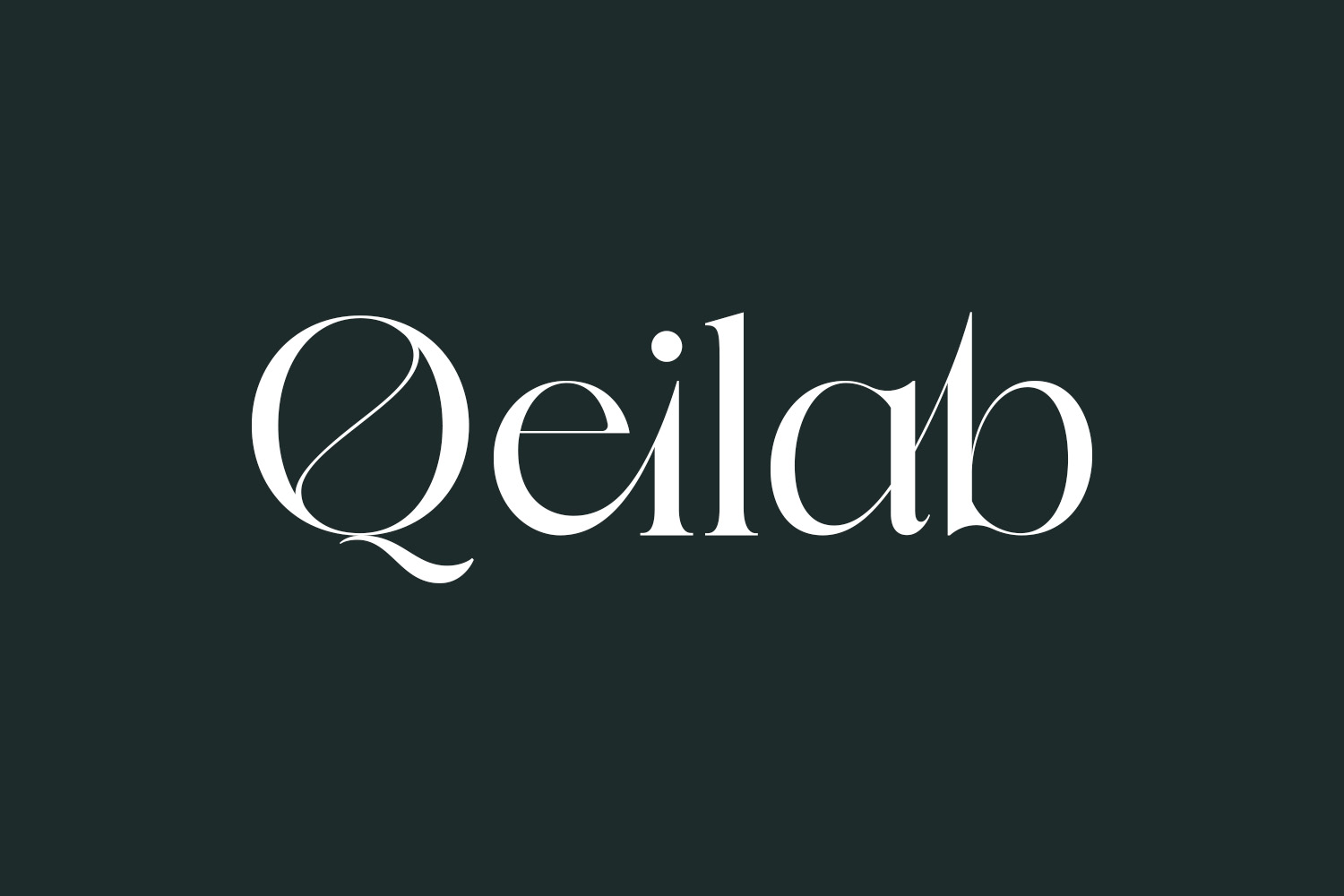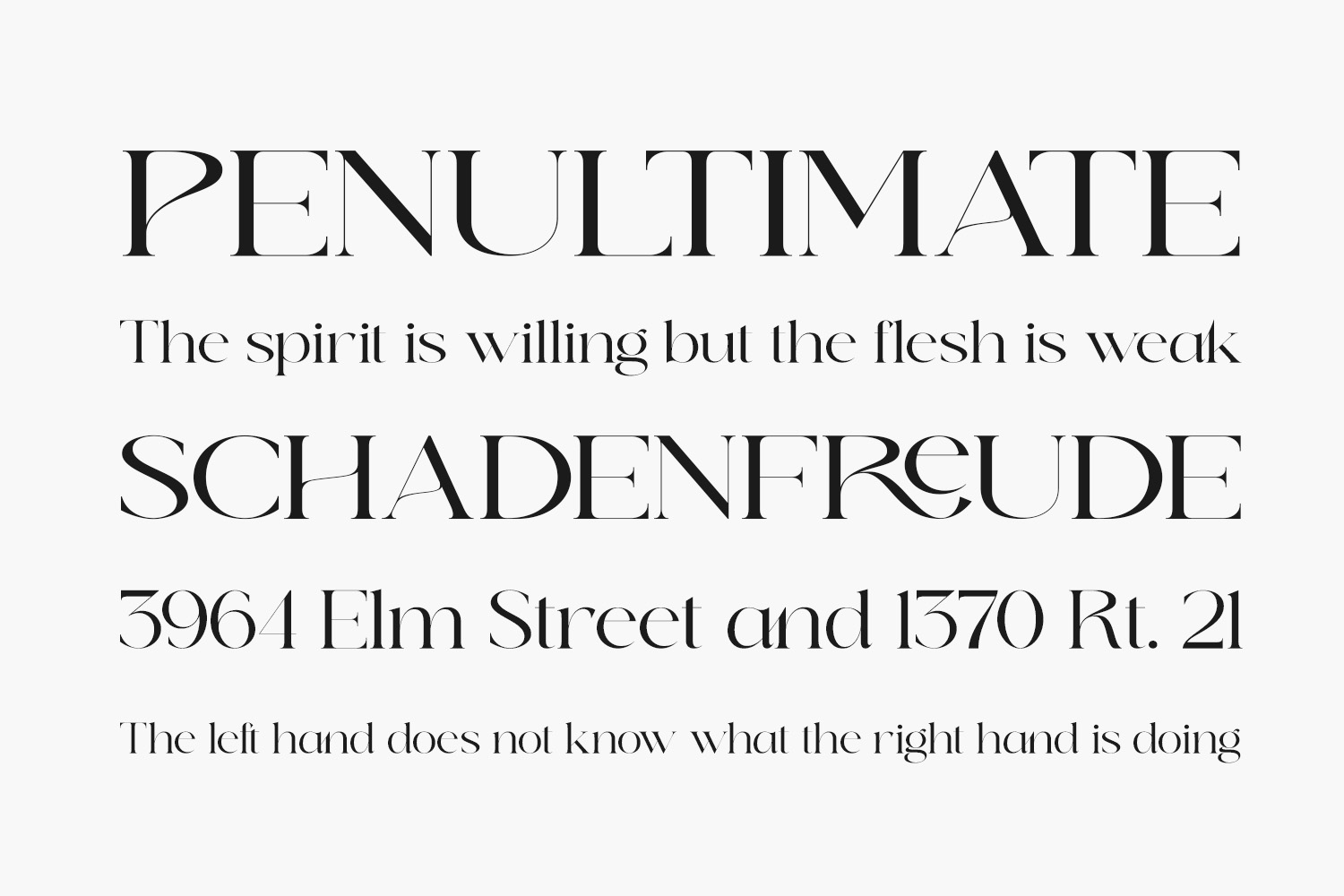
Qeilab Free Font is a serif font that seamlessly combines a modern aesthetic with classic charm, offering a truly unique and contemporary appearance. This typeface is the ideal choice for creating elegant and luxurious logos, designing captivating book or movie titles, fashion branding, magazine layouts, clothing labels, expressive lettering, inspirational quotes, and an array of other creative applications. Elevate your design projects with Qeilab’s versatile style. Qeilab Free Font is free for personal use only. Please purchase the full version for commercial use.